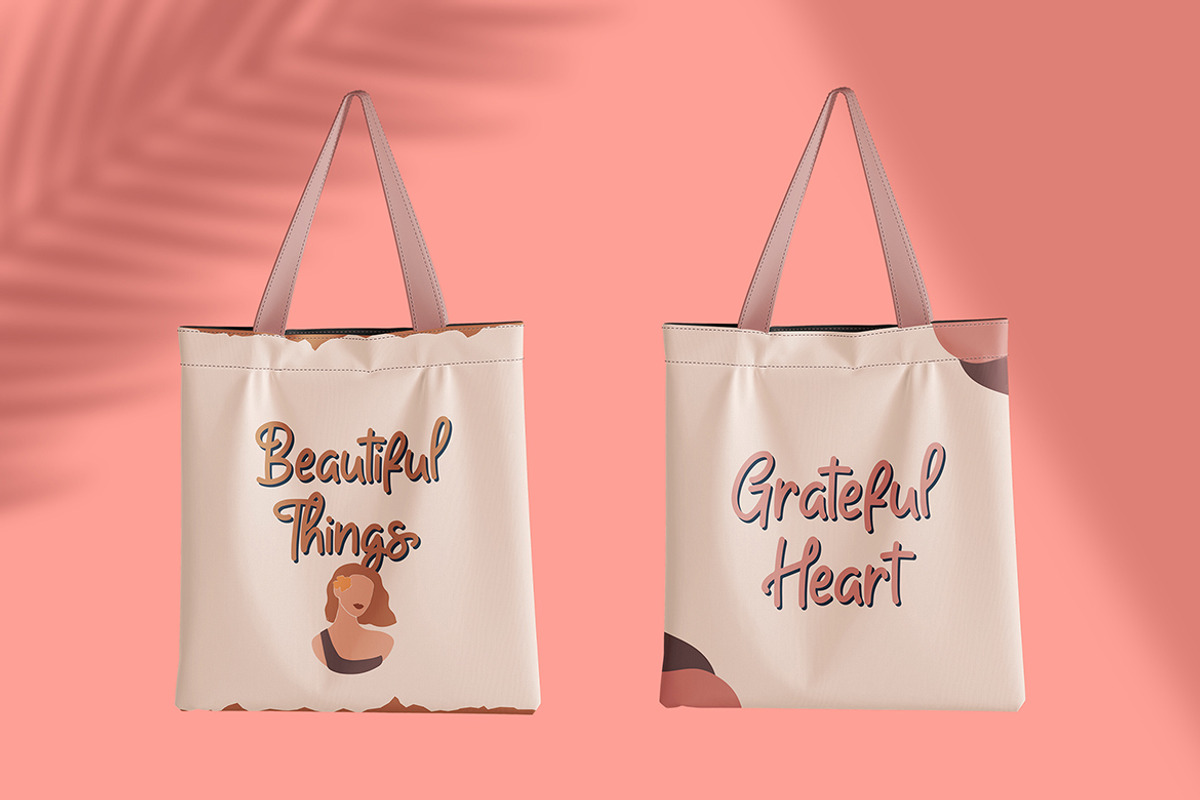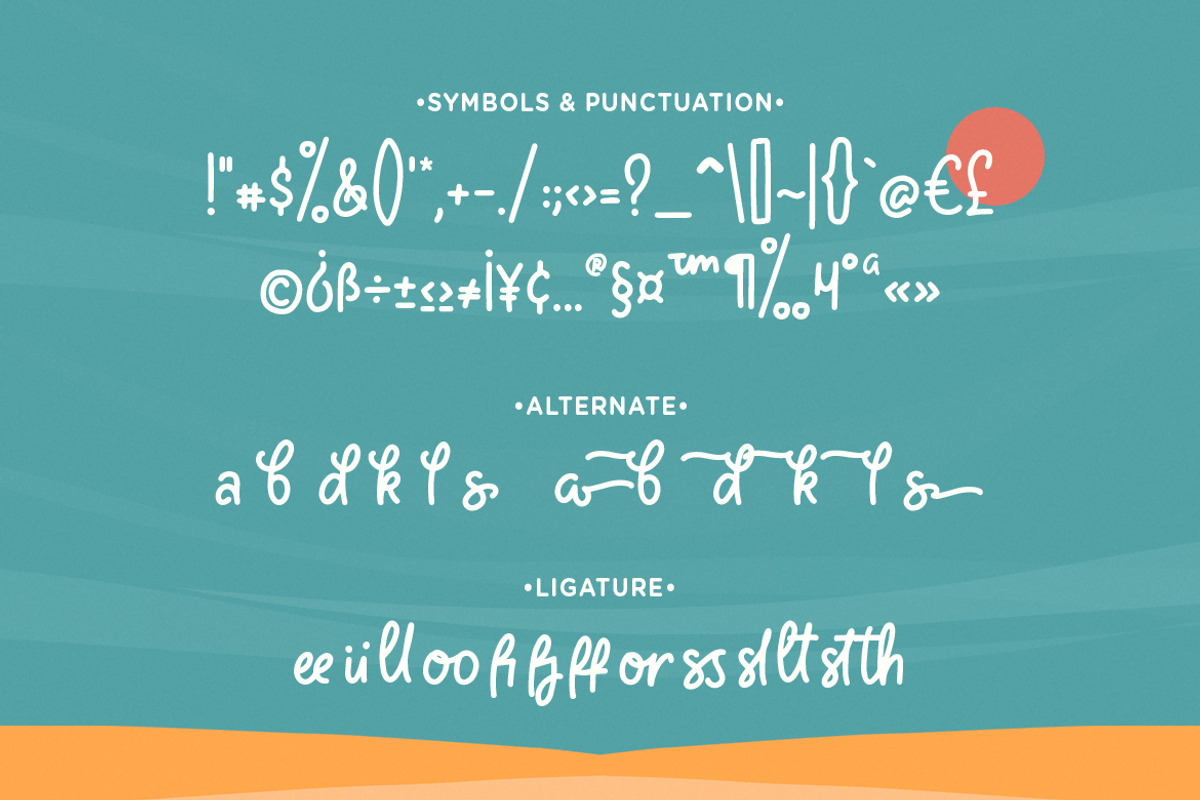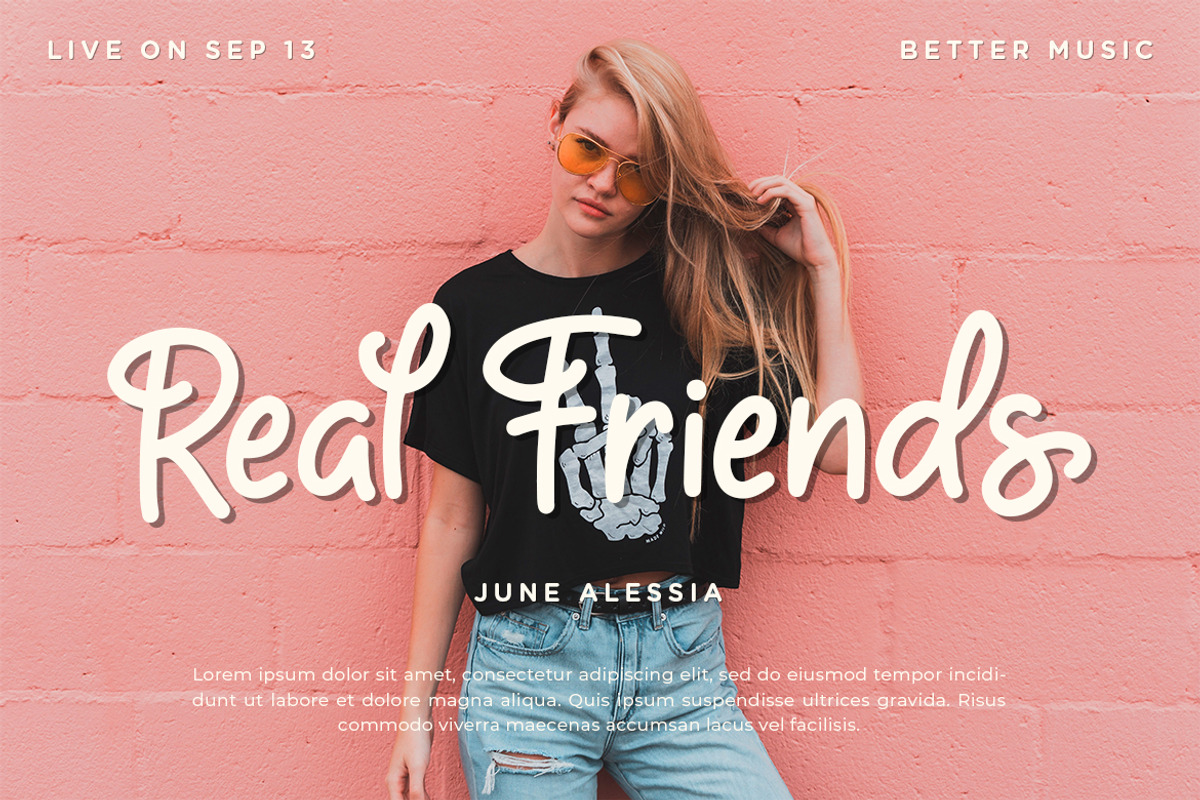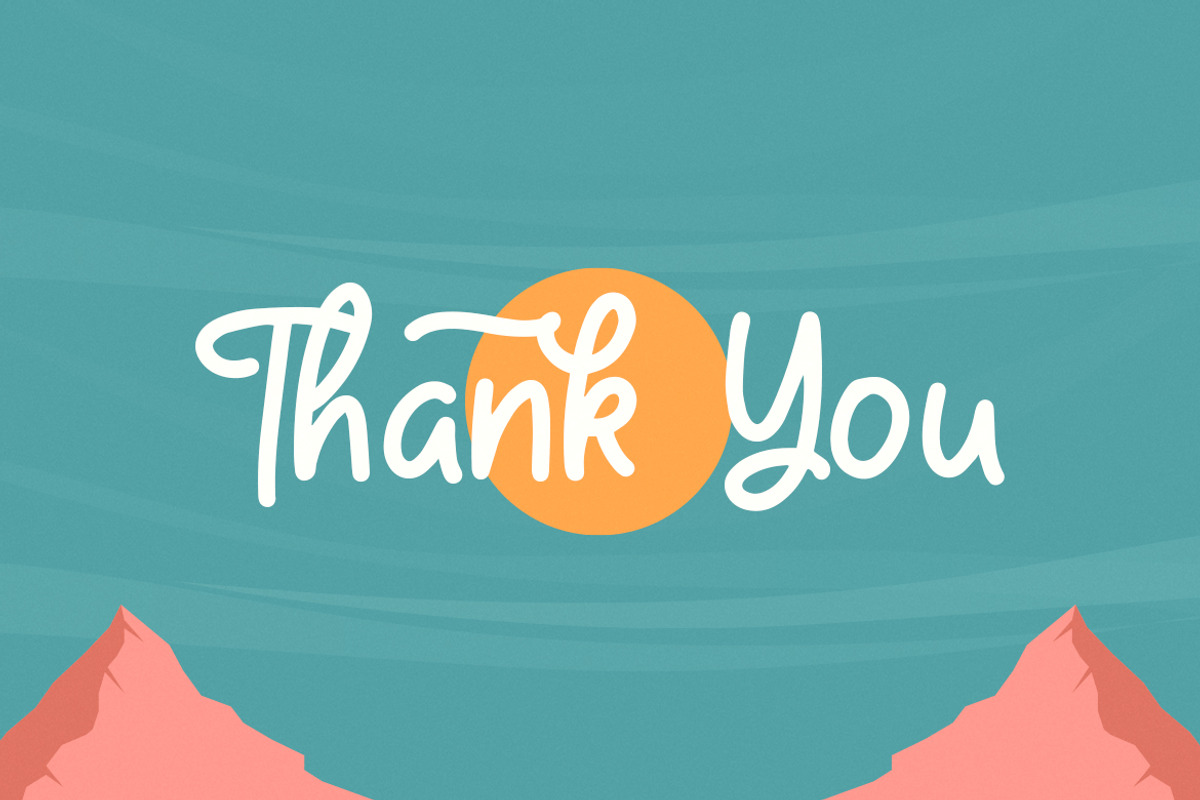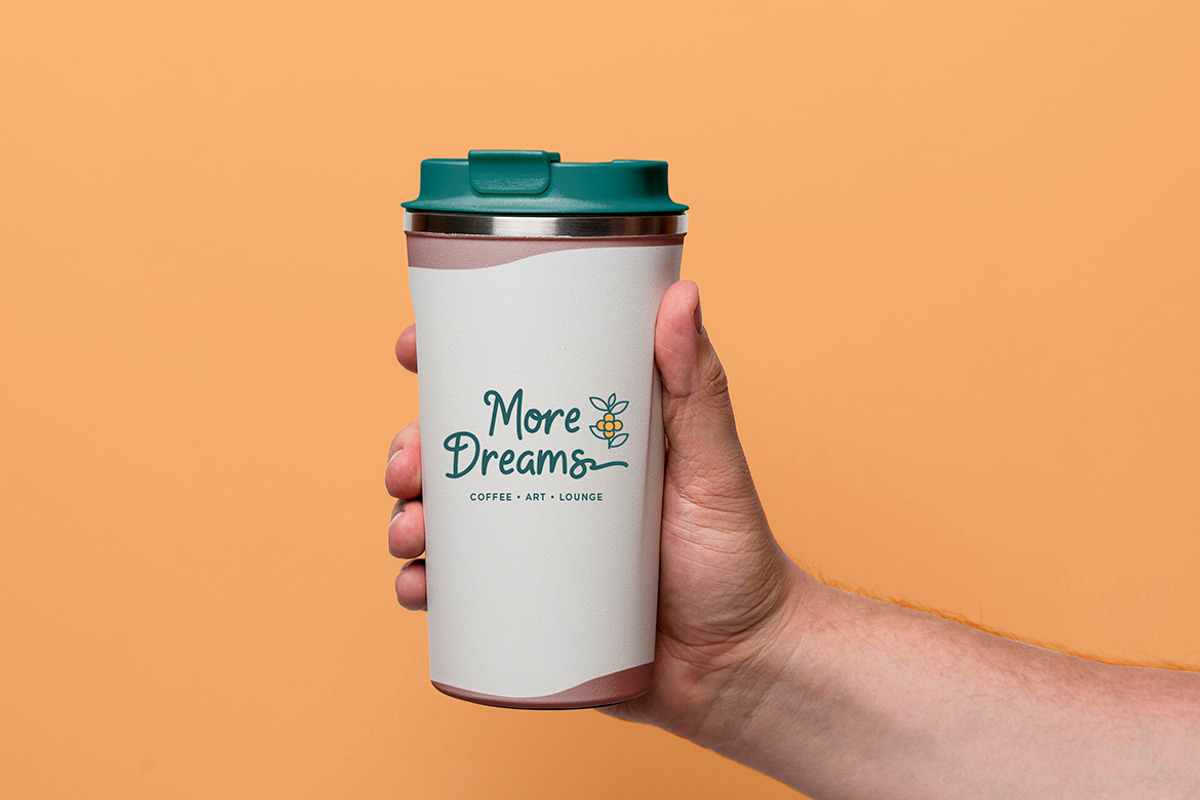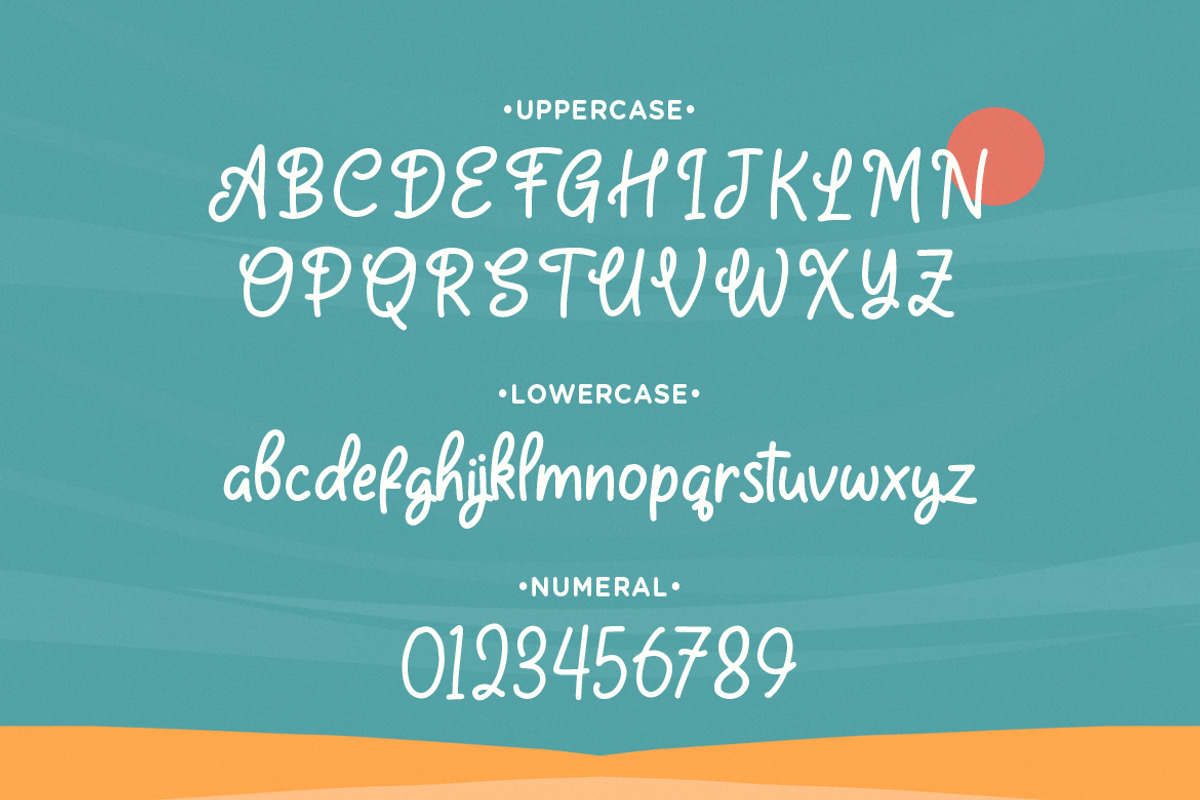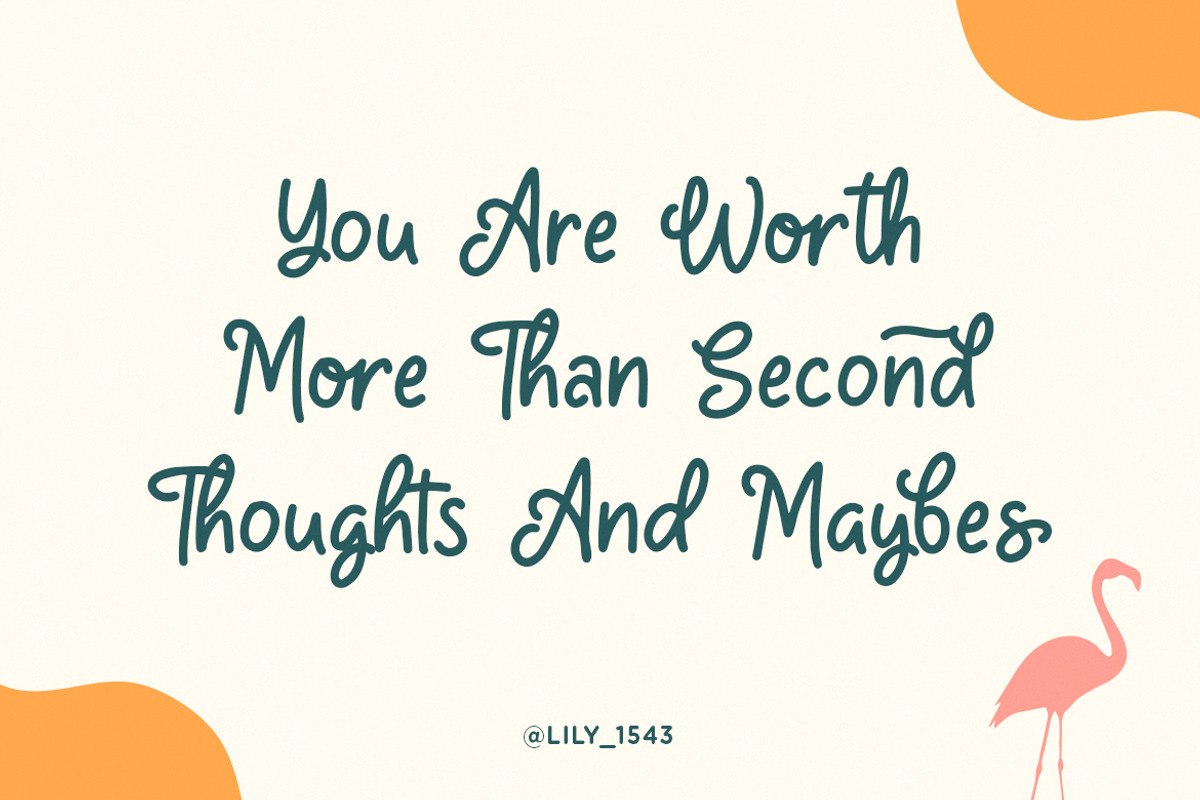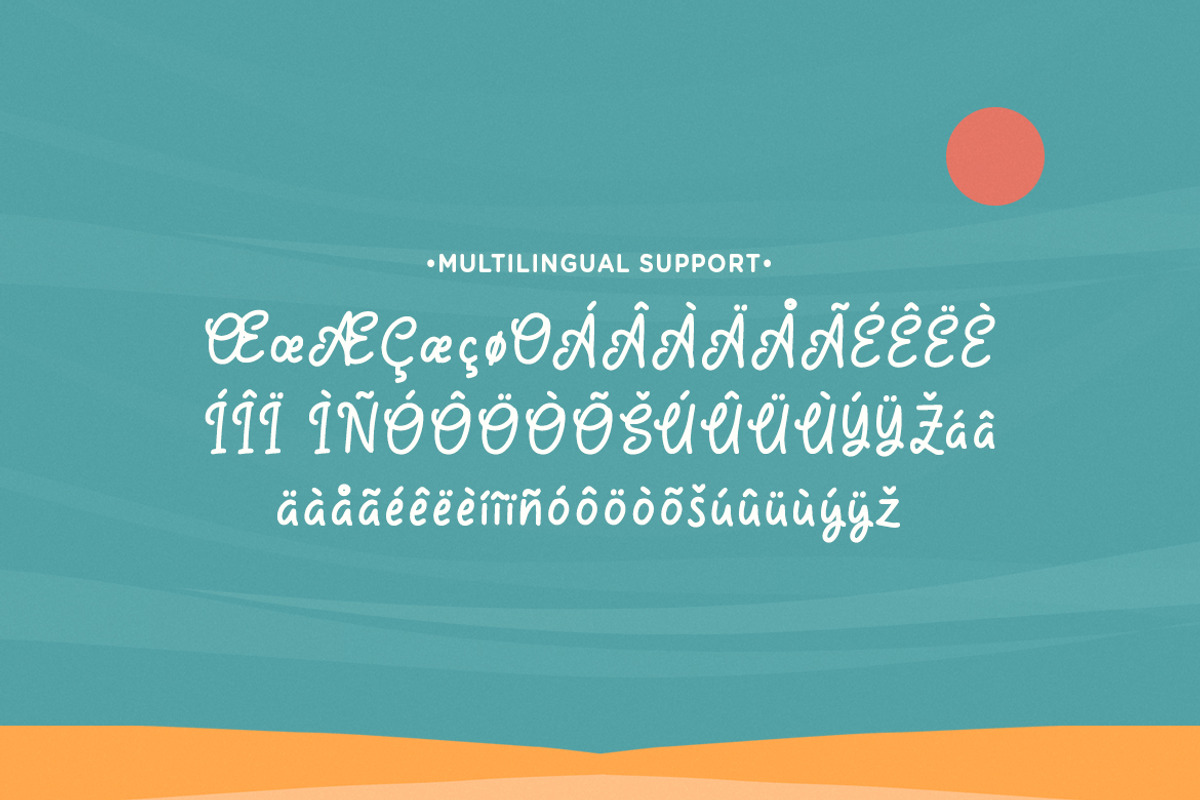
Hazeland - Fancy Handwritten Font
Hazeland is a fancy handwritten font, carefully handcrafted to become a true favorite. This font will look outstanding in any context, whether it’s being used on busy backgrounds or as a standalone headline!
- Symbols & Punctuation
- Numeral